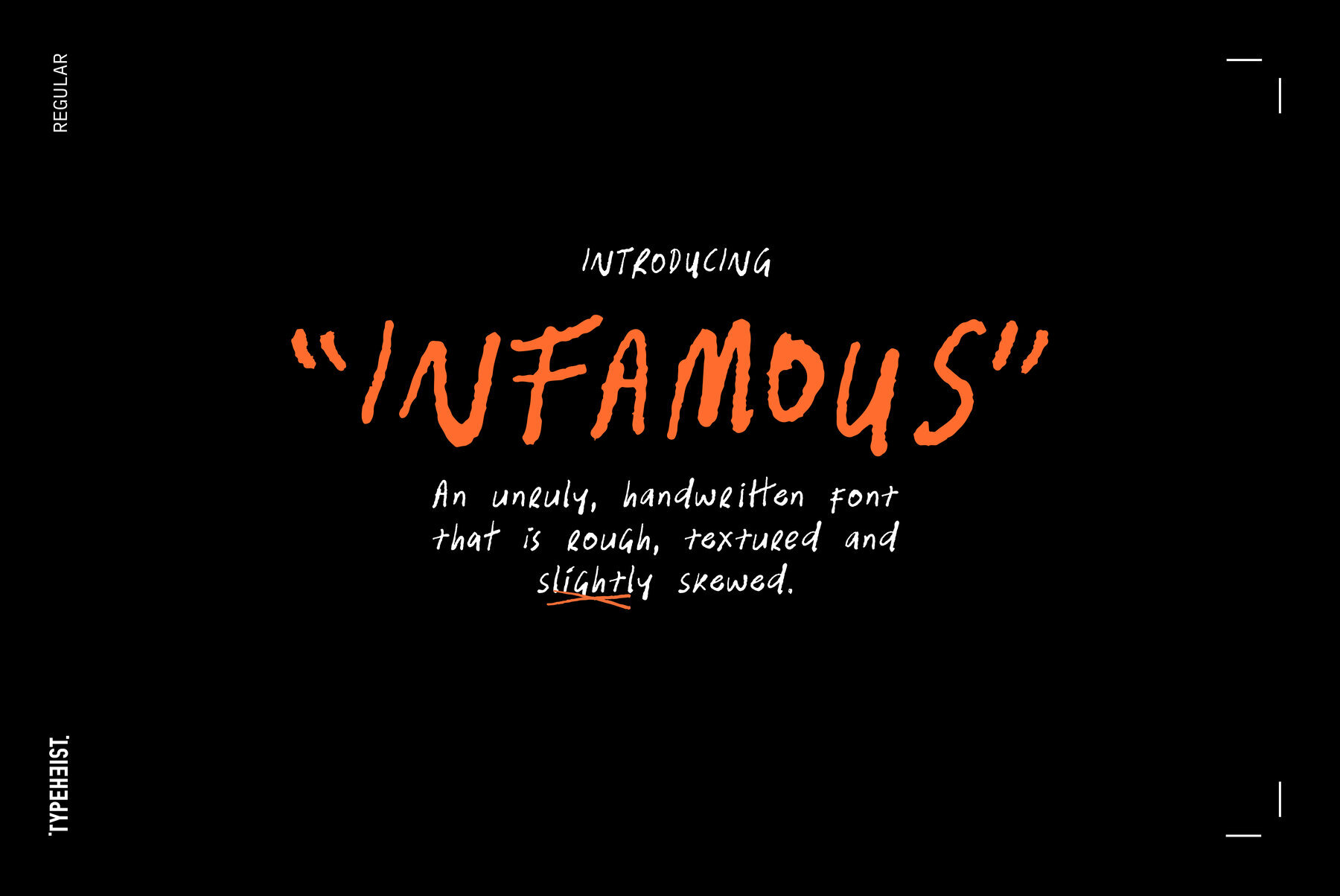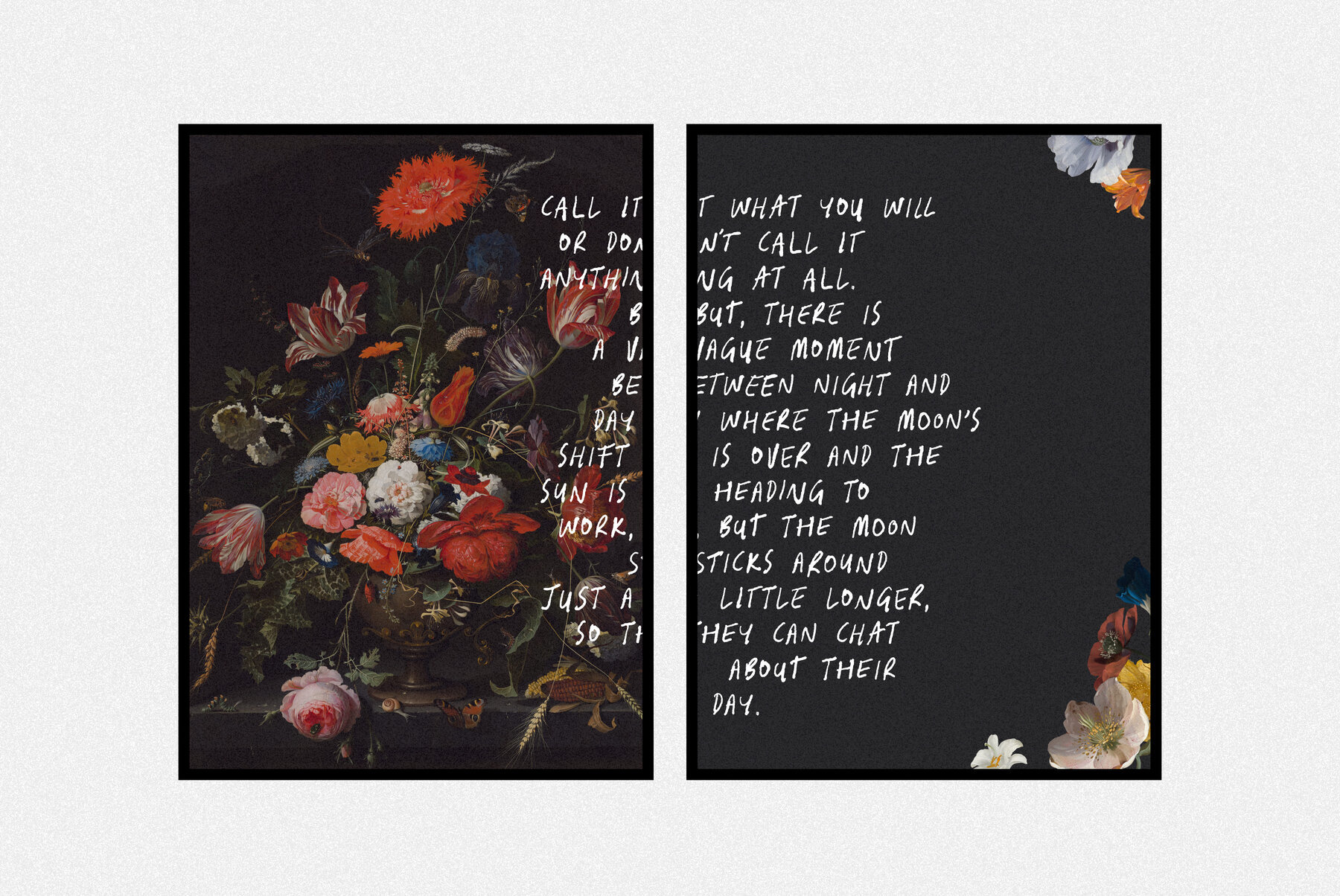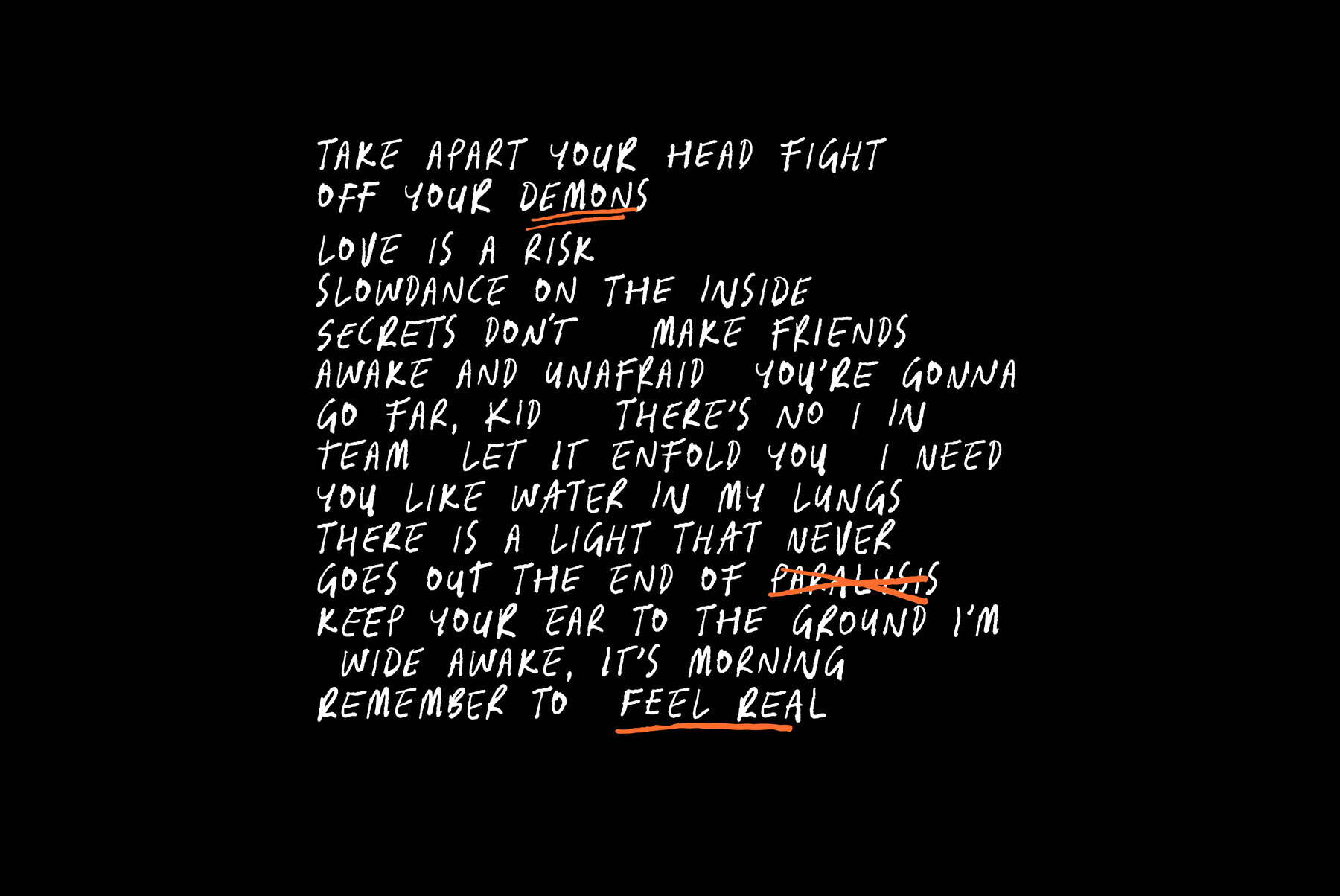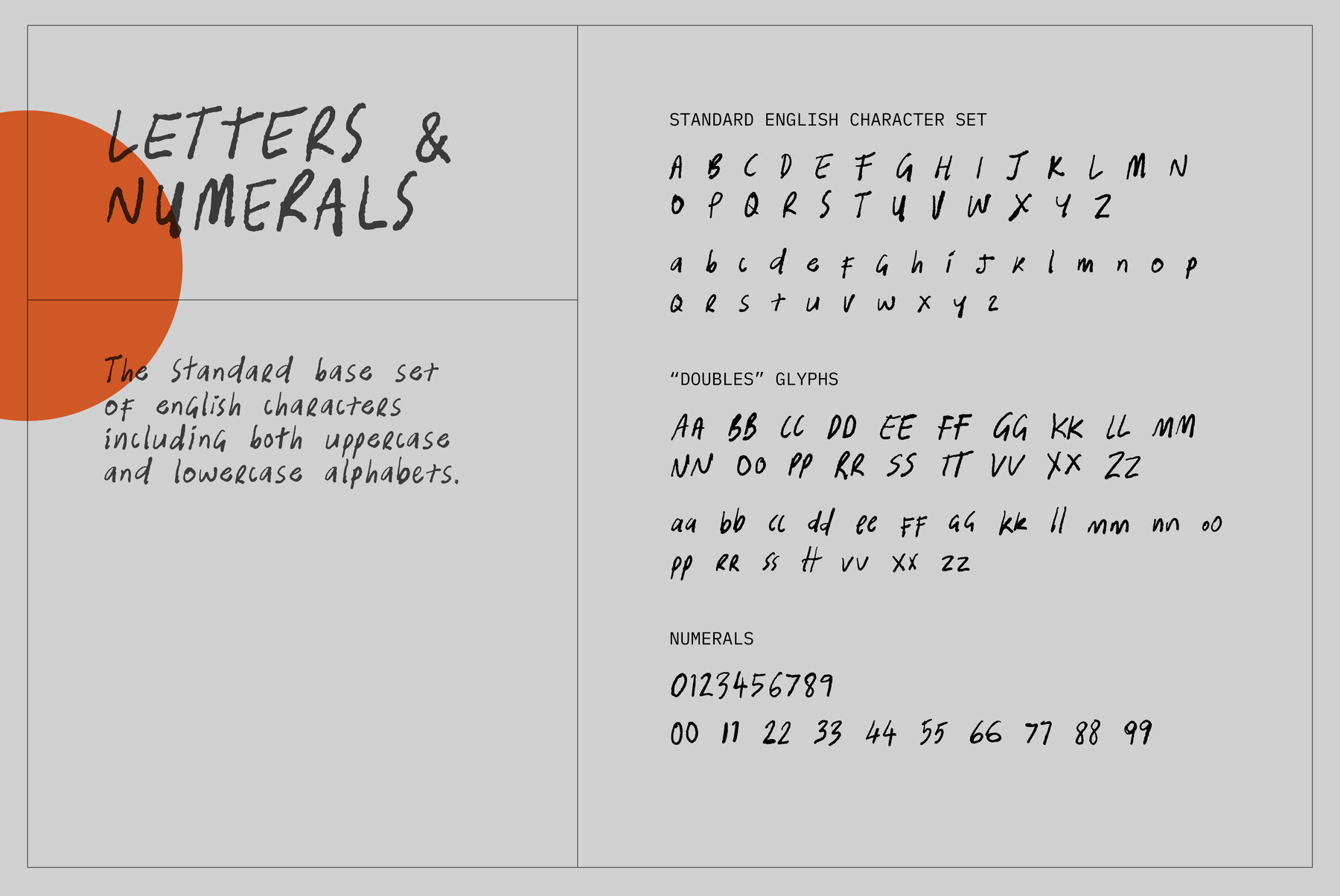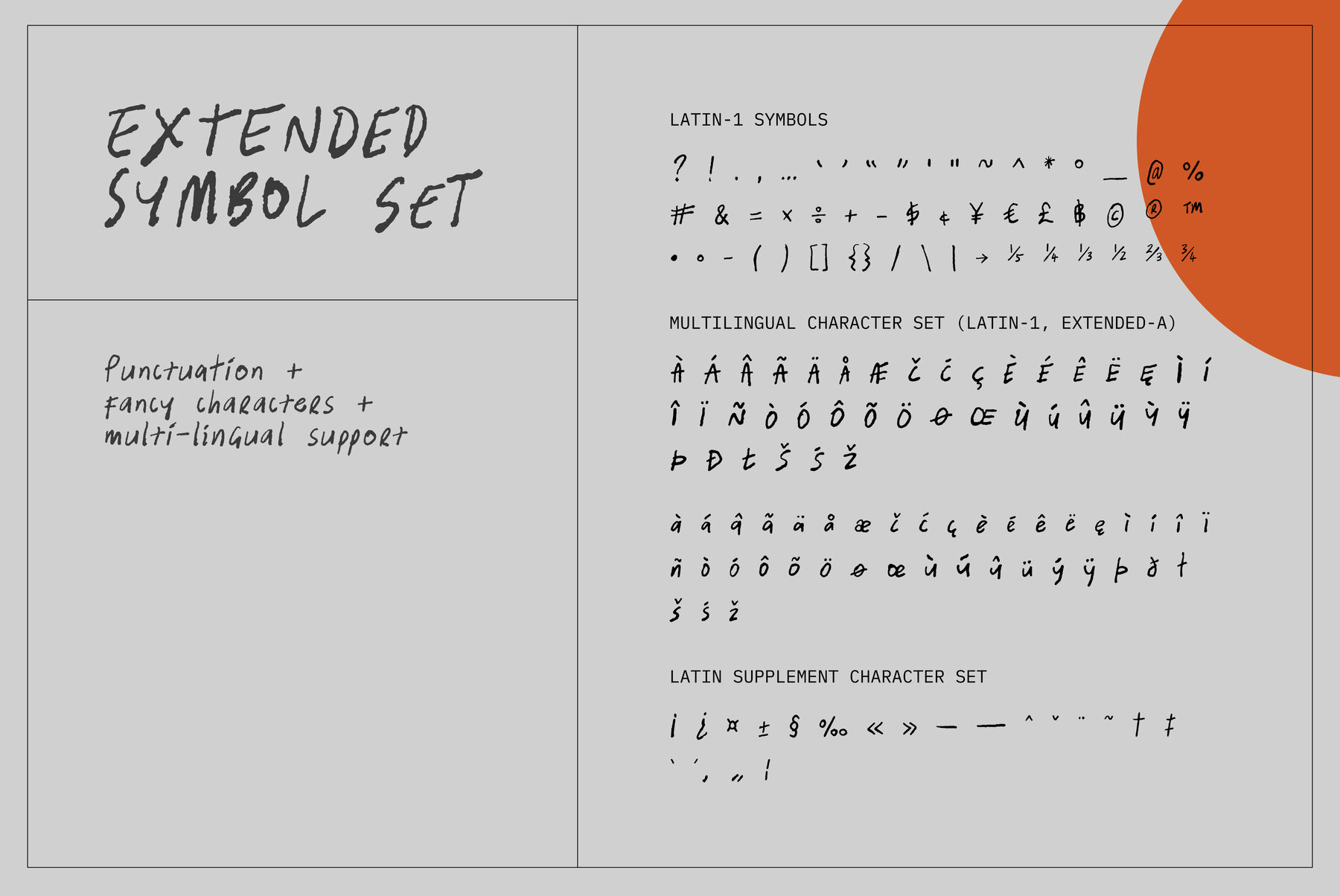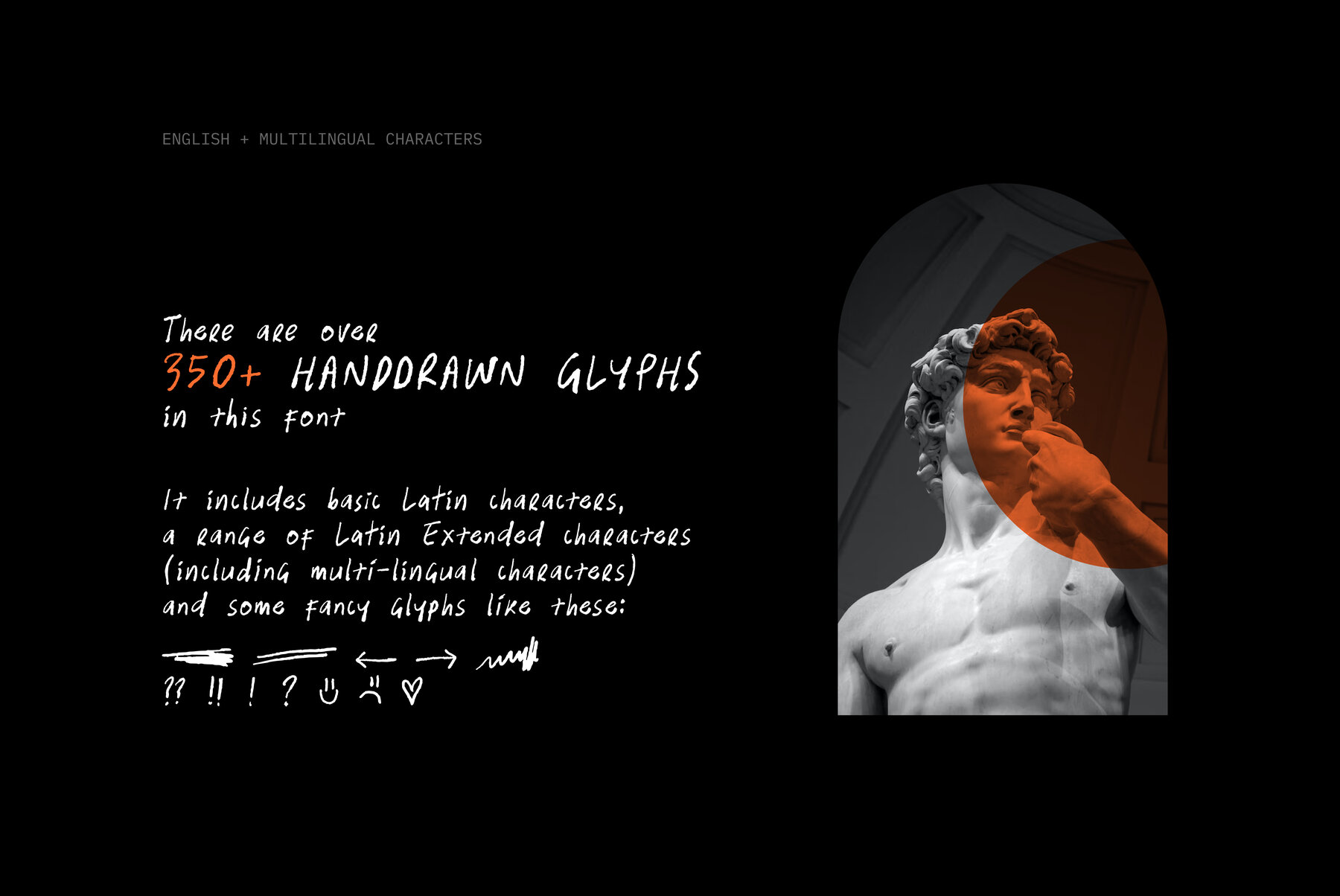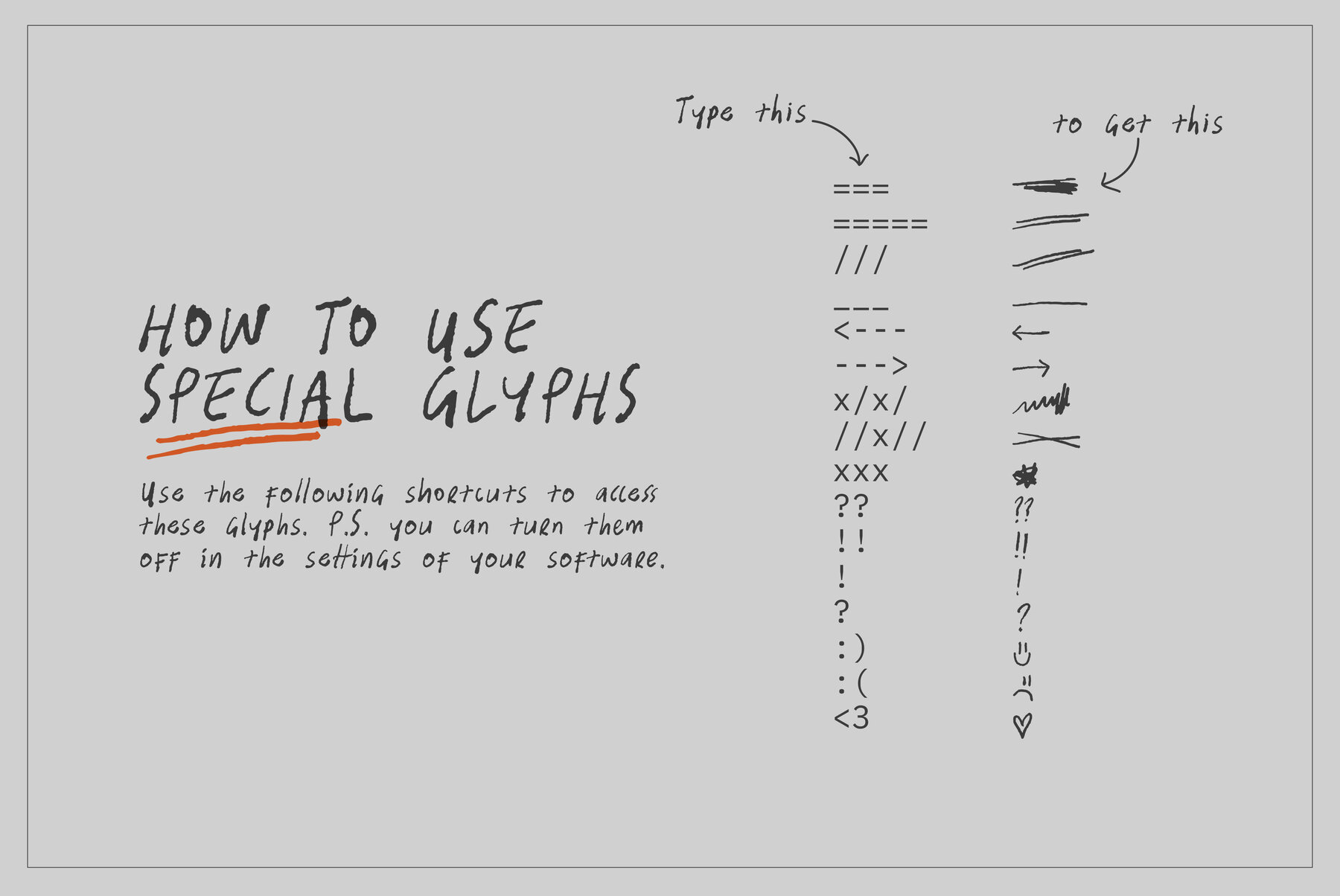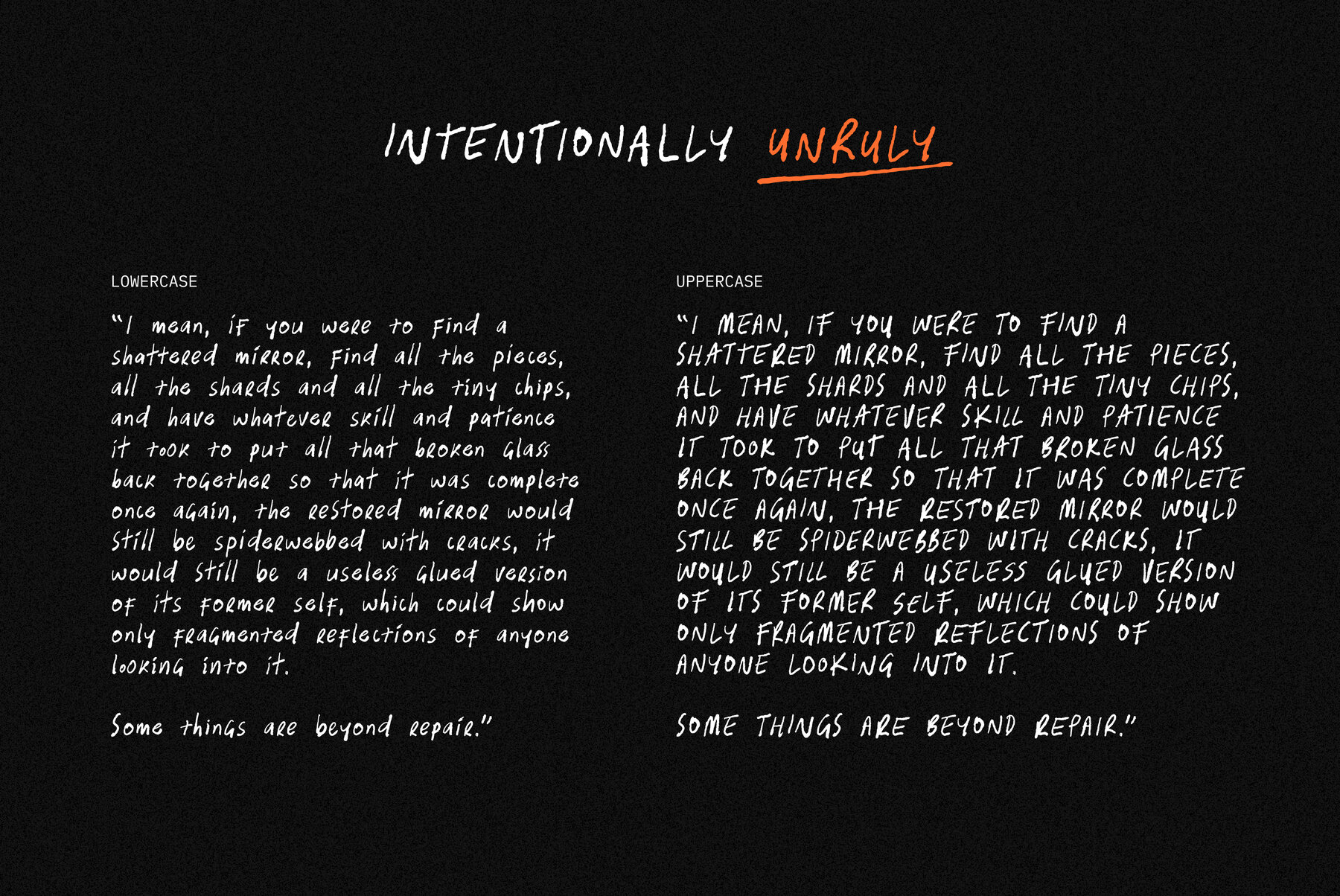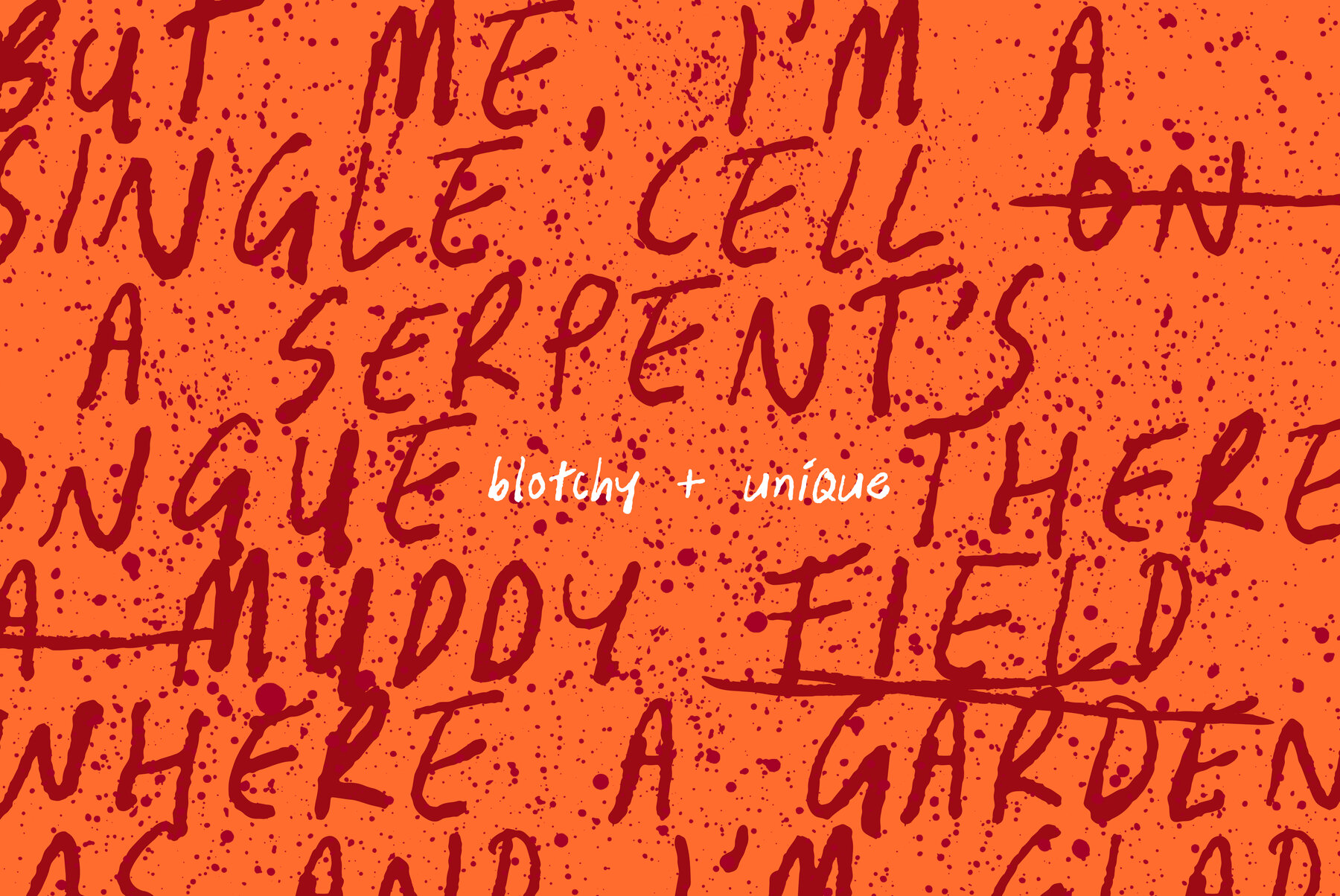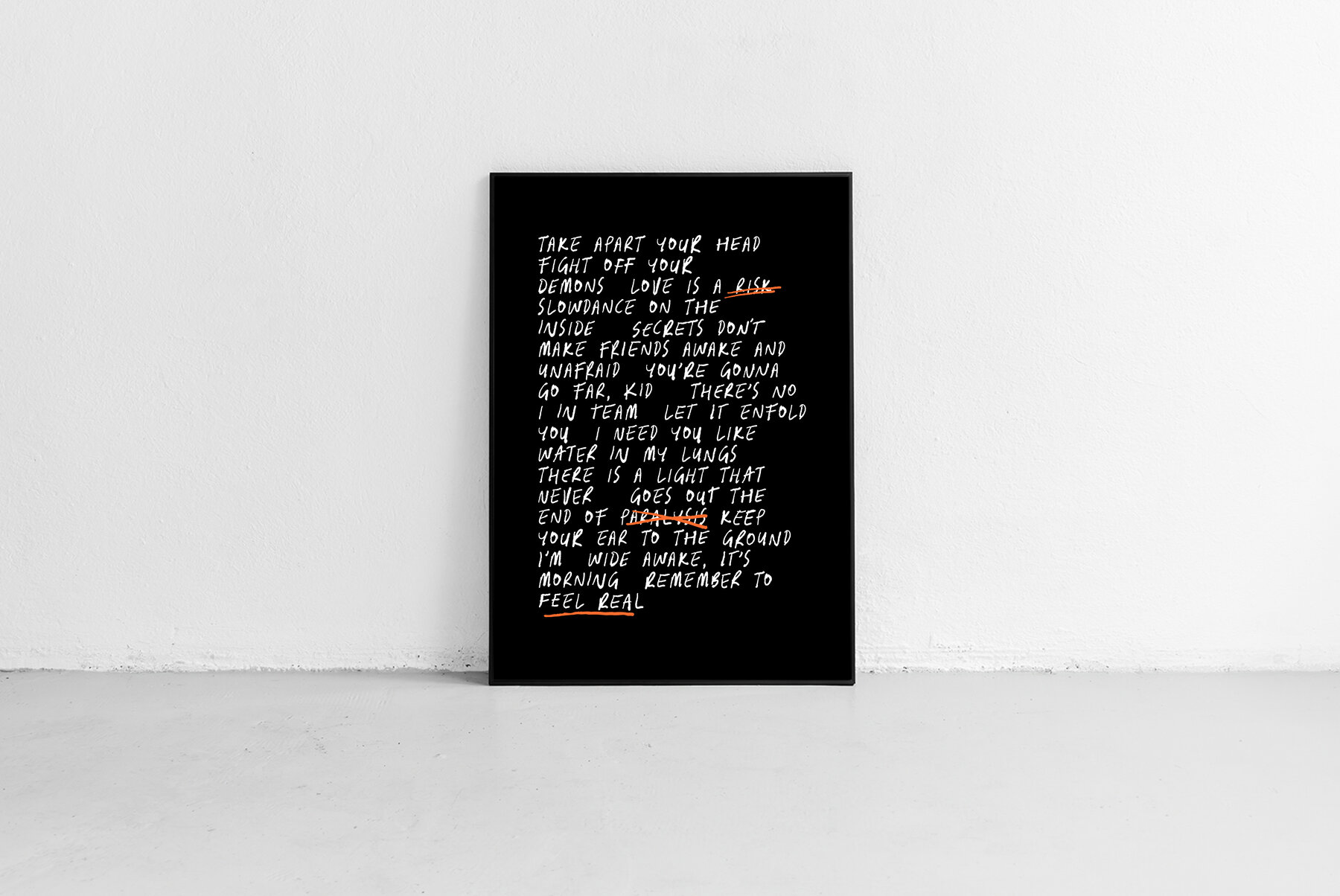
Infamous Font
Infamous Regular
An unruly, handwritten font that is rough, textured and slightly skewed. Infamous is irregular, confidently messy and undoubtably unique; how you utilise it is up to you.
There are over 360 unique glyphs in this typeface, including hand drawn scribble characters which are available by text shortcuts (see images). Infamous looks great in lowercase, uppercase and every wild combination in-between.